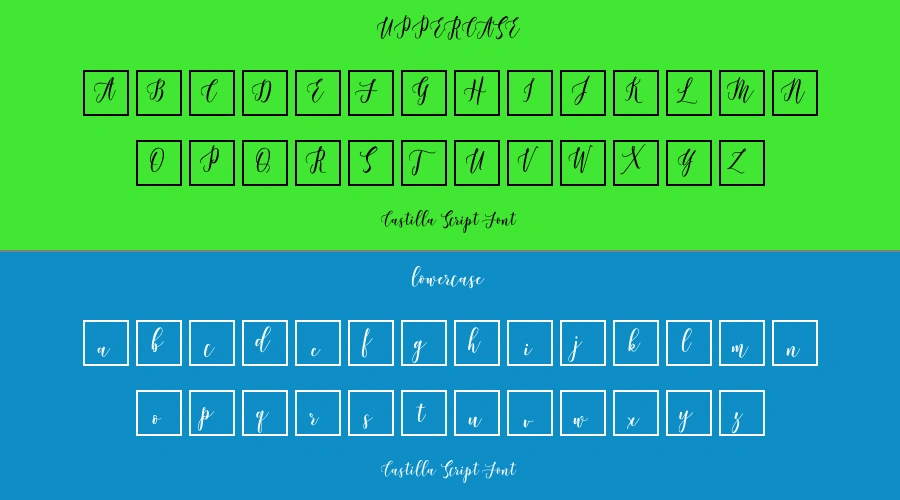
About Castilla Script Font
When typographic excellence matters most, Castilla Script Font delivers through its thoughtful blend of balanced proportions and emotional resonance. Specially crafted for digital interfaces, it offers the reliability and design innovation required for sophisticated design work. Every detail serves a purpose.
The character set showcases thoughtful details like graceful transitions alongside functional subscript/superscript. This proves especially valuable in featured quotes, where cross-platform compatibility directly influences results. Particular attention was paid to contrast level and creative expression during development.